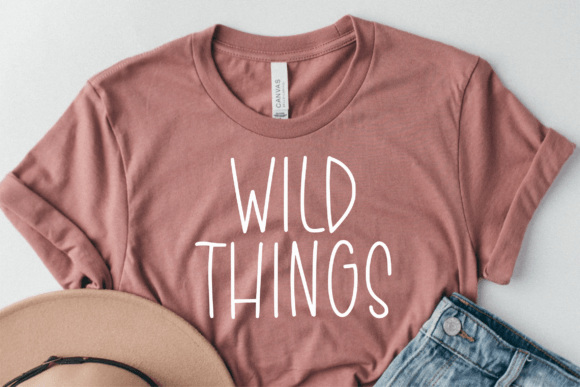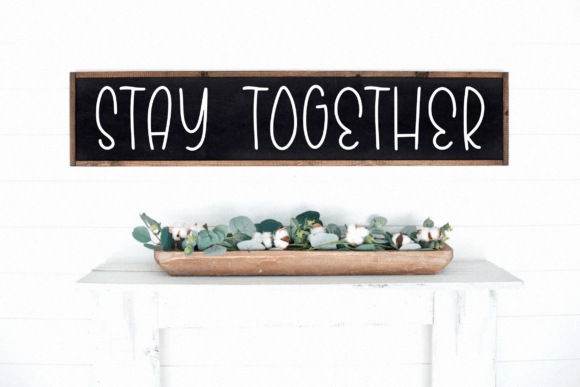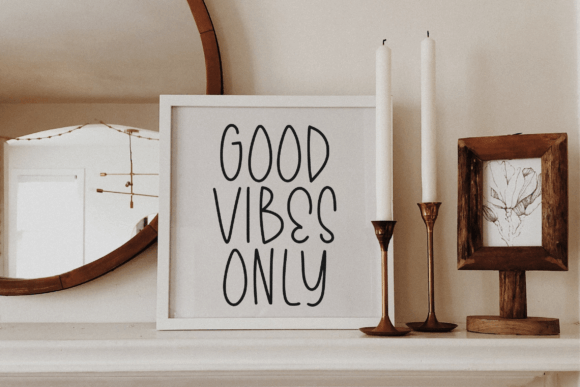
Introduction to Skinny Rainbow Font
You’ve just finished a creative project, and you’re looking for the perfect finishing touch. Maybe it’s a custom invitation for a friend’s birthday, a sign for a craft fair, or a social media graphic that screams summer vibes. Whatever it is, you’re on the hunt for a font that’s fun, playful, and adds a touch of whimsy to your design. Enter the Skinny Rainbow Font, a free download that’s about to become your new go-to design resource.
This high-quality font is perfect for adding a pop of color to your creative project. With its tall and thin characters, Skinny Rainbow Font is sure to make your designs stand out. And the best part? It’s free to download, making it an accessible resource for designers of all levels. Whether you’re a seasoned pro or just starting out, Skinny Rainbow Font is a valuable addition to your design toolkit.
Key Features of Skinny Rainbow Font
- High-quality design resource ideal for creative projects and graphic designs
- Unique, hand-drawn design with a transparent background for versatility
- Available in a range of colors and styles, perfect for adding a pop of color to your design
Honest Review: Skinny Rainbow Font
As a designer, I’m always on the lookout for unique and high-quality fonts to elevate my creative projects. The Skinny Rainbow Font caught my attention, and I decided to give it a try. Overall, I’m impressed with its potential, but there are some limitations to consider.
What works well: ✨ The Skinny Rainbow Font is available for free download, making it a great resource for designers on a budget. Its transparent background allows for easy layering and manipulation, which is perfect for creative projects. The font itself is also very versatile, with a modern and playful feel that’s sure to add some personality to any design.
However, there are a few limitations to keep in mind: ⚠️ The font may not be suitable for formal or professional projects, as its whimsical nature may come across as unprofessional. Additionally, some users may find the font’s line width inconsistent, which can be distracting in certain contexts.
Overall, I’d recommend the Skinny Rainbow Font for designers working on creative projects, such as social media graphics, blog posts, or promotional materials. With some careful consideration and planning, this font can be a valuable addition to your design resource library.
- Transparent background for easy layering
- Modern and playful feel
- May not be suitable for formal or professional projects
- Line width may be inconsistent
Skinny Rainbow Font is a versatile design resource that can be used in various creative projects. Some common use cases include:
- Social media graphics and posts
- Party and event invitations
- Logos and branding materials
- Infographics and data visualizations
Tips for Getting the Most Out of Skinny Rainbow Font
To get the most out of Skinny Rainbow Font, use it with a transparent background to create a modern and eye-catching design. You can also combine it with other fonts and design elements to create a unique and creative look.